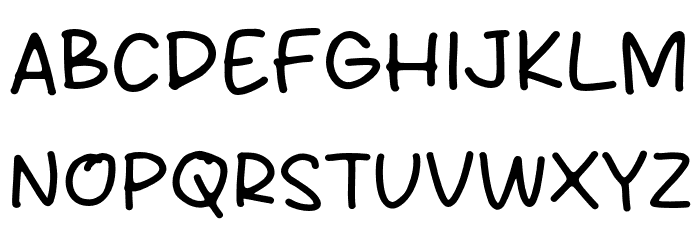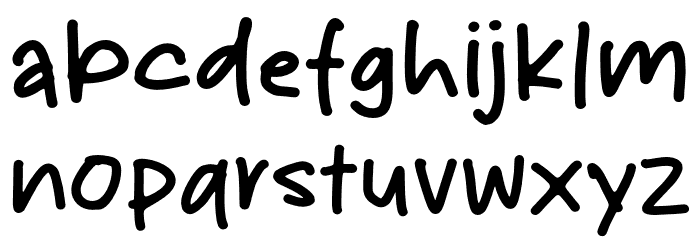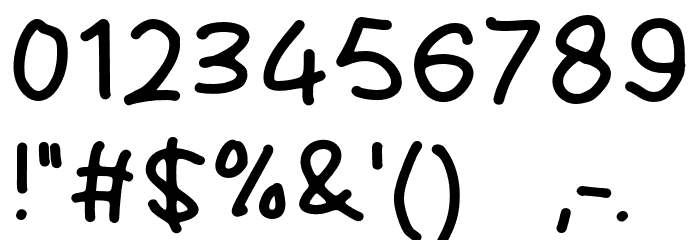
Daily Moody Font
This font exudes a playful and informal vibe, characterized by its handwritten style that mimics casual penmanship. The letters are slightly irregular, adding to the charm and authenticity of the design. Each character maintains a consistent thickness, contributing to a cohesive look across the alphabet. The rounded edges and smooth curves enhance its friendly and approachable appearance. This font is versatile, suitable for projects that require a personal touch or a relaxed atmosphere. The numerals and special characters are crafted with the same attention to detail, ensuring uniformity throughout.
A playful, handwritten font with a casual and friendly style.
- Font: Daily Moody
- Proposed Projects: Ideal for greeting cards, children's books, personal blogs, and informal branding.
- Category: Handwritten
- Overall Style: Casual
- Use Case: Logos, Headlines, Informal Text